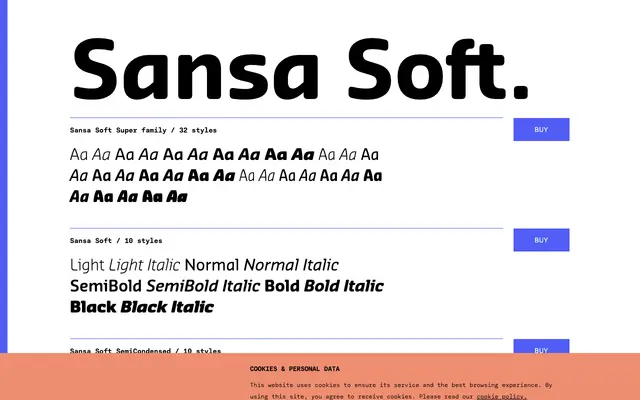
Sansa Soft
A 32-style humanist sans superfamily with softened terminals, spanning three widths from regular through semi-condensed to condensed.
The family is organised into three width subfamilies — Sansa Soft, Sansa Soft SemiCondensed and Sansa Soft Condensed — each with italic companions and a weight range running from Light to Black, with an UltraBlack reserved for the Condensed. OpenType features include small capitals, oldstyle figures, tabular figures, fractions and a slashed zero, giving the family solid utility for both text and display settings. The softened stroke endings lend warmth without tipping into overtly rounded territory.
Sansa Soft is a humanist sans-serif superfamily with softened terminals and a warm, approachable character, spanning regular, semi-condensed and condensed widths across multiple weights.